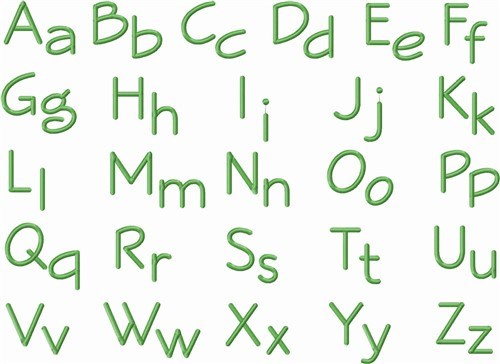
Unicorn Creatives is happy to present Belly Flop Embrilliance Embroidery Font - Playful Rounded Letters - BX font machine embroidery font which has Playful rounded letters create a lighthearted machine embroidery font, perfect for casual projects like kids' apparel or fun decor. Available in BX font and Embrilliance formats. included. If you would like to view more embroidery fonts and alphabets please search our embroidery fonts page.
Belly Flop Embrilliance Embroidery Font - Playful Rounded Letters - BX font